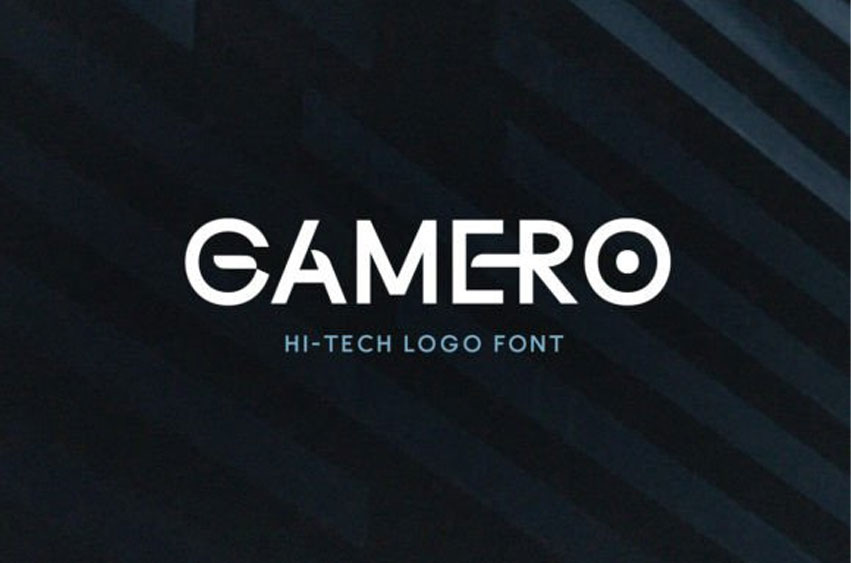
Gamero Font is a hi-tech logo-inspired font with unique and futuristic looks.
With a stylish fracture in lowercase mode, you can combine the uppercase and lowercase to make your logo unique.